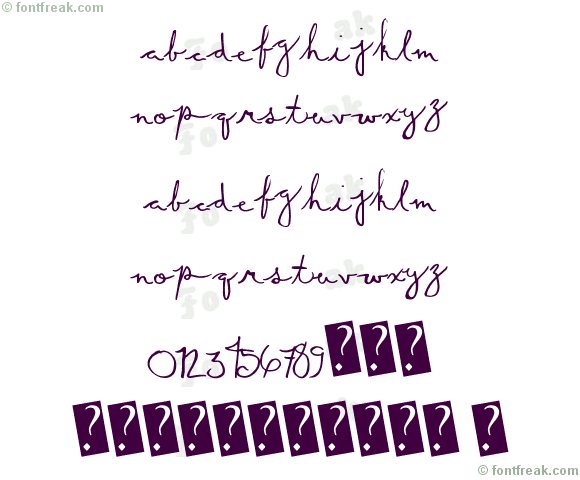
SummerScript
SummerScript by Xerographer Fonts is a charming handwritten script font that embodies a playful yet elegant aesthetic. Released in 2012, this font features fluid, sweeping strokes with a slightly irregular baseline, giving it a unique and organic feel. The stroke weight is moderate, ensuring readability while maintaining a friendly, informal appearance. The letters exhibit a delightful contrast, with thin, delicate lines complementing thicker strokes, enhancing the font's whimsical nature. Its open spacing allows for easy legibility, making it an excellent choice for various design applications.
This versatile font is perfect for wedding invitations, where its romantic flair can enhance the overall aesthetic. It also suits greeting cards, adding a personal touch to heartfelt messages. For small businesses, SummerScript works wonderfully on restaurant menus, creating an inviting atmosphere that reflects the brand’s personality. Additionally, it can be effectively utilized in social media graphics, appealing to content creators who wish to infuse their posts with a handmade quality.
What sets the SummerScript font apart is its ability to blend charm with functionality. Its handwritten style evokes a sense of authenticity and personal connection, making it a standout choice for projects that require a touch of individuality. Whether you're crafting a heartfelt invitation or a captivating social media post, SummerScript font free download is a delightful option that brings your creative vision to life.